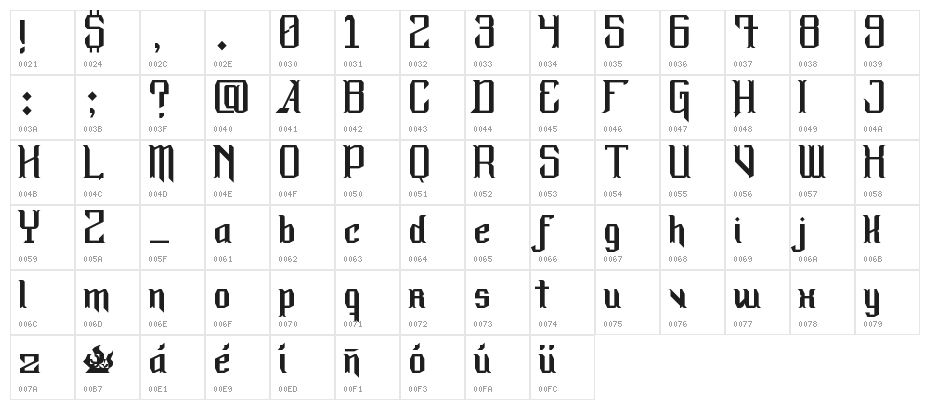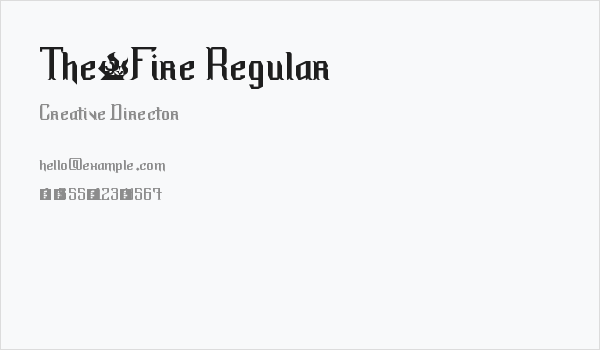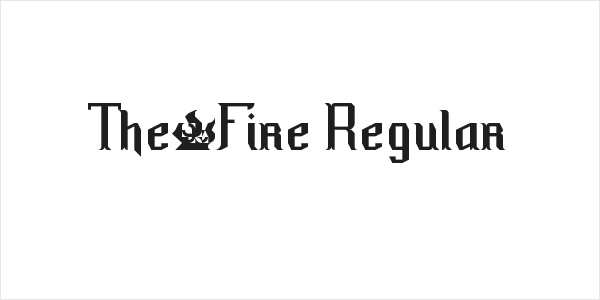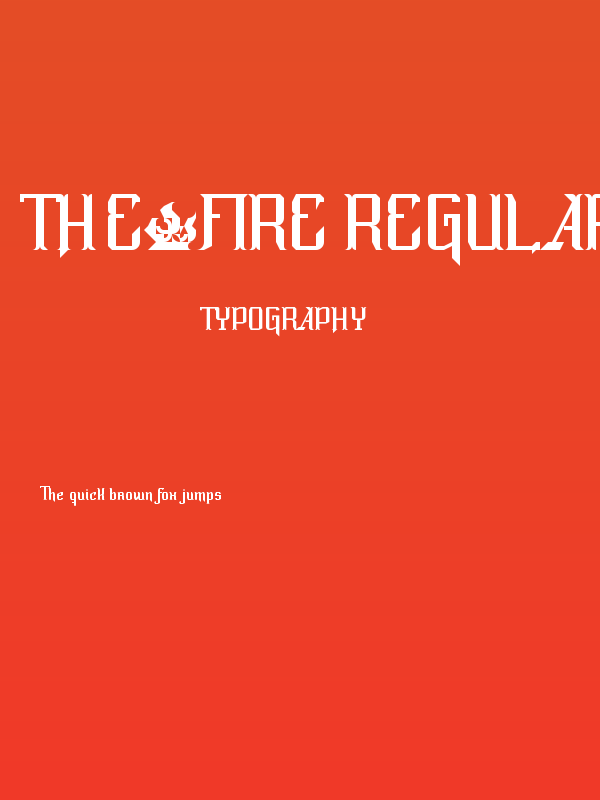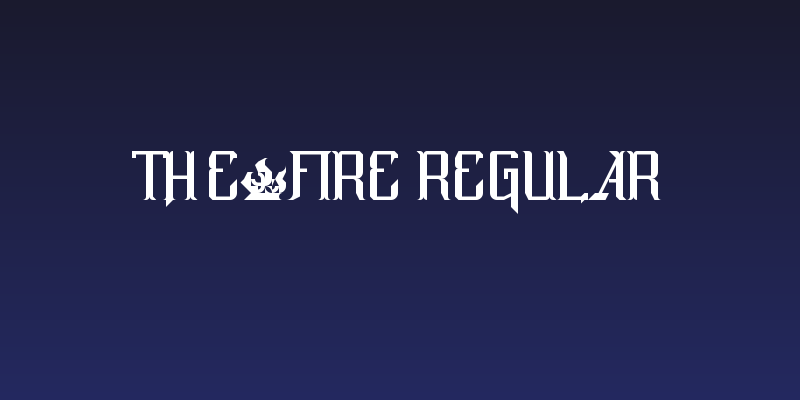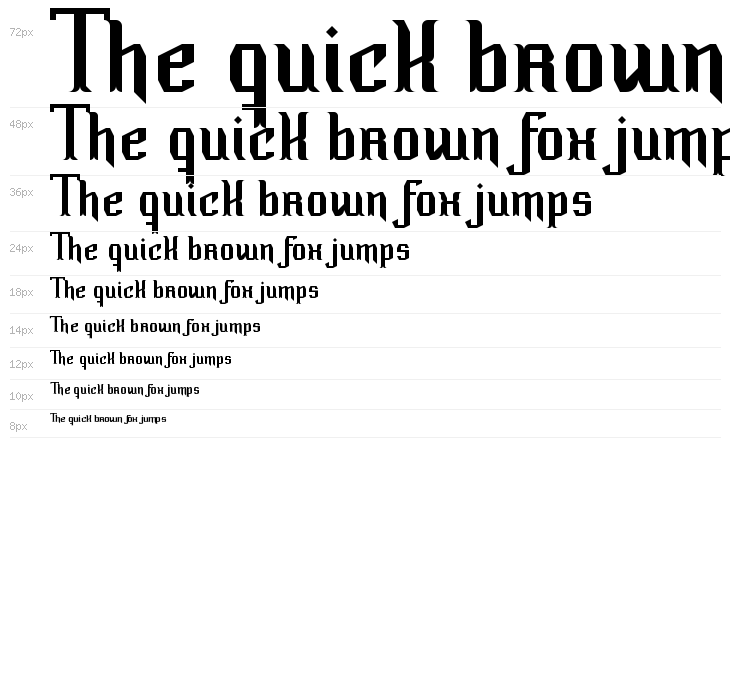
The·Fire Regular Font
✎ Gothic
The·Fire Regular Description
This font features a bold, angular design reminiscent of traditional blackletter styles, yet it incorporates modern elements that give it a unique edge. The uppercase letters are tall and narrow, with sharp serifs and intricate details that add a sense of drama and intensity. The lowercase letters maintain a consistent style, offering a cohesive look across the typeface. Numbers and special characters are designed with the same boldness and angularity, ensuring uniformity throughout. The overall appearance is striking and attention-grabbing, making it suitable for projects that require a strong visual impact.
| Proposed Projects | Ideal for branding, posters, album covers, and any design that requires a bold, dramatic typeface. |